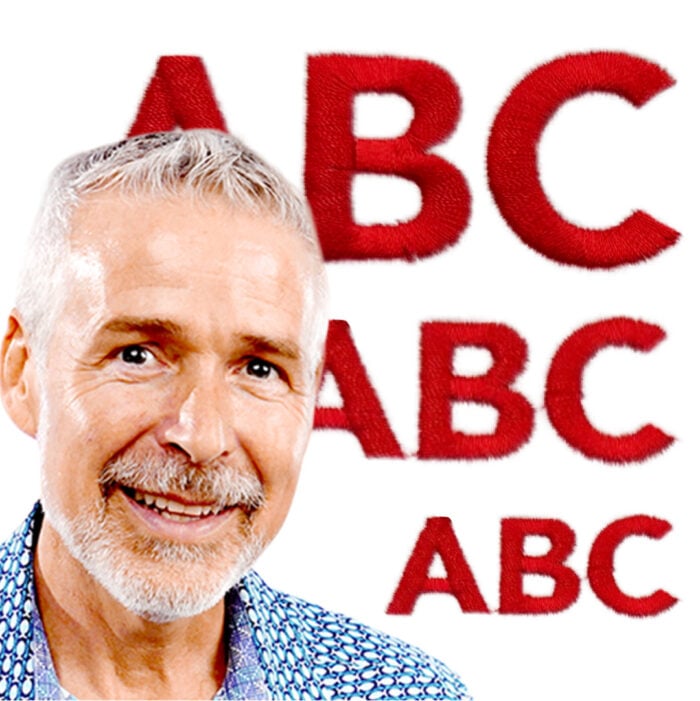
Manually Digitize Block Fonts That Stitch Clean and True
In this masterclass, you’ll learn how to manually digitize block fonts with precision to create clean, consistent lettering that runs smoothly in production.
- Video 1: Building the Foundations for Block Fonts. Start with the core principles behind clean embroidered lettering. You’ll learn how the “dancing baseline,” lettering size, kerning, and object direction all affect the final results as you begin creating an 8mm uppercase and lowercase font.
- Video 2: Scaling Lettering for 15mm Fonts. See how the same font changes at a larger size. This lesson shows you how size and direction influence your digitizing choices, helping you make smarter adjustments for better balance, clarity, and stitch performance.
- Video 3: Digitizing 25mm Lettering with Control. Finish by creating the same font at 25mm, focusing on satin-stitch width, object construction, and proper adjustments. You’ll learn how to make confident decisions as letter size increases and production demands change.
- Foundational guidelines for manually digitizing embroidery fonts
- How to create clean block lettering that stitches consistently
- Techniques for managing baseline movement, kerning, and spacing
- Pathing methods for lettering are built left to right and right to left
- How size changes affect direction, stitch length, and object creation
- How to digitize lettering for both visual appeal and production efficiency
This masterclass is designed to give you a strong foundation in one of the most valuable skills in embroidery digitizing: clean, professional lettering. Built on decades of John’s embroidery experience and traditional principles passed down from his Schiffli mentors, this training goes far beyond shortcuts and presets. You’ll see how the same block font behaves at multiple sizes, helping you understand not just what to do, but why it works. That makes it ideal for beginners building strong fundamentals and experienced digitizers looking for more control and consistency. With clear step-by-step instructions, you’ll learn how to create lettering that looks polished, stitches cleanly, and runs efficiently in production. It’s a skill that continues to pay off across logos, names, uniforms, and custom embroidery work.